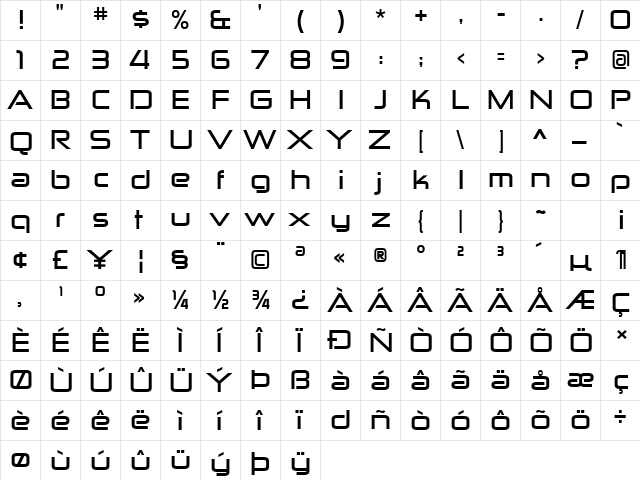
Zekton Ex Bold
Design Context for Zekton Ex Typeface
Zekton Ex is a composed and adaptable typeface that performs quietly and consistently across a wide range of design contexts. Its bold stroke weight gives it real presence on the page.